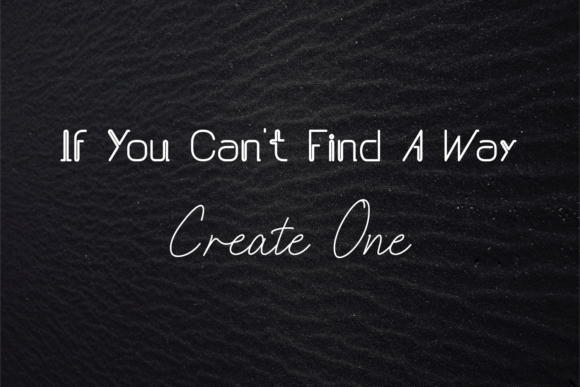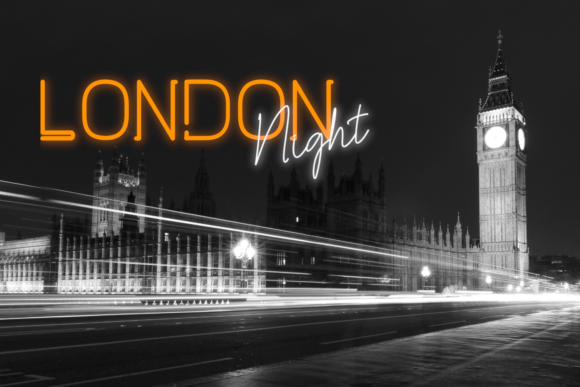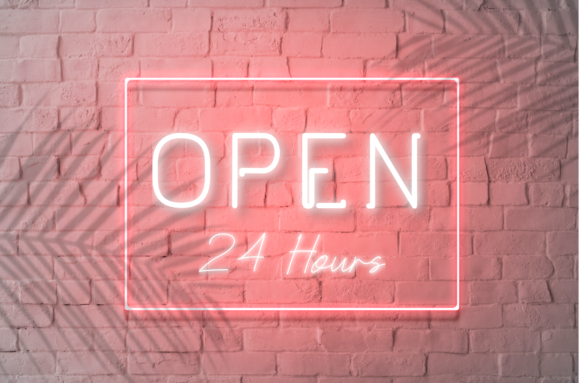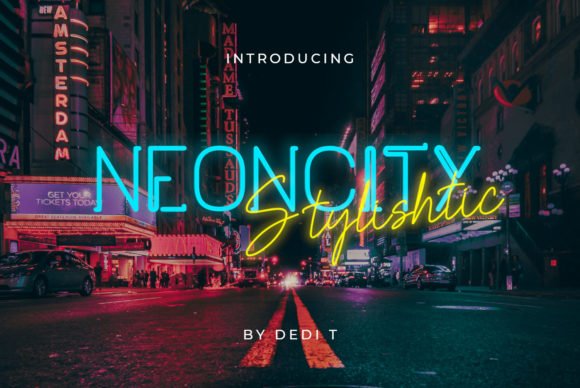
Introduction to Neoncity Font
Neoncity is a bold and fresh display font with a vintage feel.
Inspired by the flashing 80’s, it will add a distinct look to any design project .
Key Features of Neoncity Font
Why Choose Neoncity Font?